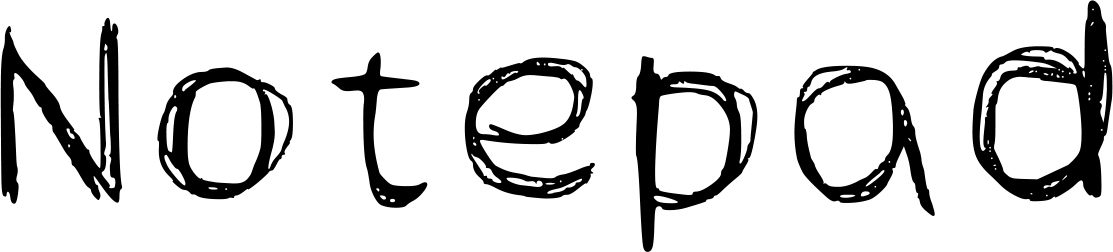
Notepad Font
Conveying a friendly and playful feeling in designing can happen through the presence of the scribble font like Notepad; its fantasy and cool spirit make it likely to embellish any creative kids’ cartoon program, card de…
Conveying a friendly and playful feeling in designing can happen through the presence of the scribble font like Notepad; its fantasy and cool spirit make it likely to embellish any creative kids’ cartoon program, card design, posters, apparel, and other creative displays.
No biggie that this linear font doesn’t contain numbers; rest assured, it would leave no stone unturned in bringing out your design.